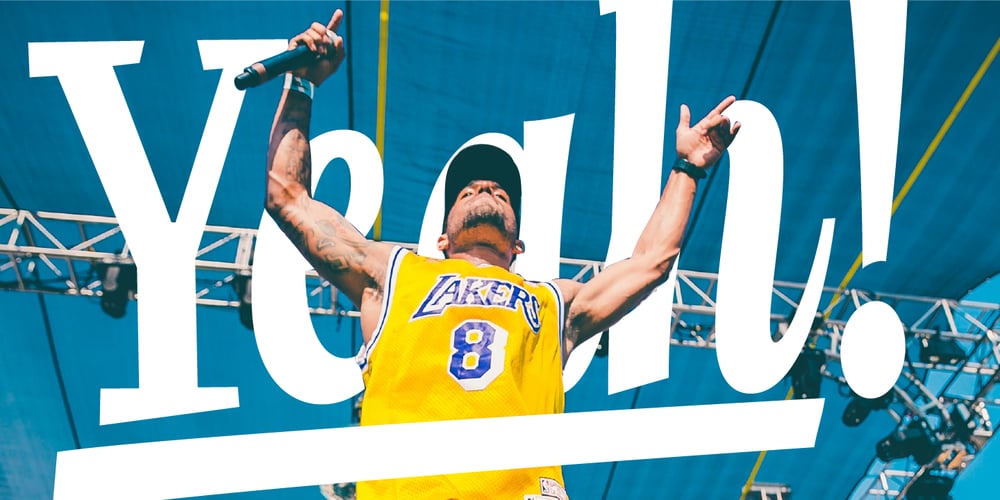
Charlotte Script Font Family was designed by Andrés Ramírez and published by Vástago Studio. Charlotte Script contains 1 styles and family package options. A funny Script typeface with a simple construction for to show a dynamic texture playing with the baseline. This letters are inspired on the work of House Induestries mixing a traditional serif with a playful script, like some retrospective alphabets in the vintage ads. Enjoy it, and thanks for buy it!